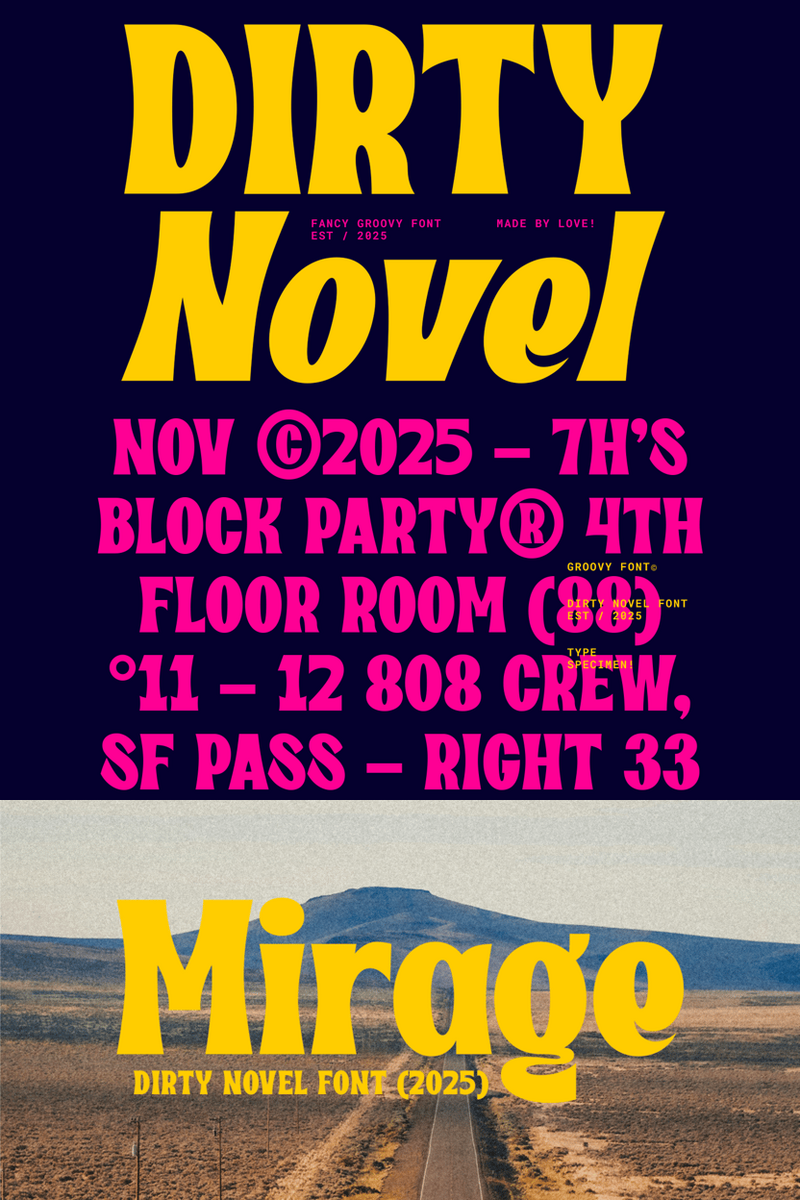
Cultivating Creativity: How Dirty Novel Font's Organic, Hand-Drawn Spirit Brings Playful Authenticity to Educational Platforms, Crafting Memorable Logos for Outdoor Learning Apps and Vibrant Branding for Experiential Workshops
Tired of learning looking... a little too clean? A little too stiff? Let's face it, sometimes education needs to get its hands wonderfully, delightfully dirty! Enter Dirty Novel, the font that's shaking up educational design with a whimsical, organic, and utterly captivating personality.
Imagine the authentic scrawl of a passionate teacher, the spontaneous sketch in a well-loved notebook, or the gentle rustle of leaves as a new concept takes root. That's the heart of Dirty Novel. It’s not just a typeface; it’s a living, breathing character, each curve and stroke brimming with a natural, hand-crafted charm that instantly sparks curiosity and connection. It embodies that perfectly imperfect spirit, like an adventurous spirit ready to explore new ideas.
Picture this: You’re crafting an incredible online course about sustainable living or an interactive app for young naturalists. You’ve got groundbreaking content, stunning visuals, but your chosen font feels... sterile. It’s professional, yes, but it lacks the earthy, vibrant energy your topic demands. Your learners scroll, but their eyes glaze over; the words don't feel green, don't feel alive. Now, swap it out for Dirty Novel. Suddenly, your module titles aren't just text; they’re an invitation. Your key takeaways aren't just bullet points; they're discoveries waiting to happen. The content breathes, it feels authentic, almost like it was personally scribbled by an expert sharing their passion directly with you. The "dirty" in its name isn't about being messy, it’s about being raw, real, and refreshingly unfiltered – just like learning in its most natural state.
Dirty Novel isn't just pretty; it's a powerful tool designed to solve common design challenges on learning platforms, transforming passive content into active engagement.
- Boost Engagement & Retention: Its playful, approachable aesthetic breaks down barriers, making complex topics feel less daunting and more inviting. Learners are more likely to interact and remember content that feels genuinely engaging.
- Forge a Unique Brand Identity: In a sea of generic serifs and sans-serifs, Dirty Novel helps your platform stand out. It communicates innovation, authenticity, and a fresh approach to education, building a memorable brand that resonates emotionally.
- Enhance Emotional Connection: The organic lines evoke a sense of human touch, fostering a more personal and intimate learning experience. It feels less like institutional instruction and more like a friendly guide on an exciting journey.
- Versatile & Vibrant: From eye-catching headings that demand attention to supportive body text that maintains its charming legibility, Dirty Novel adapts beautifully, ensuring your message always pops with personality.
So, where does this spirited font shine brightest? Think: Dynamic E-learning Modules where chapter titles become adventures. Engaging Educational Apps that need character in their UI and dialogue. Vibrant Marketing Materials for workshops that promise hands-on discovery. Creative Branding for nature schools, children’s literacy programs, or sustainable learning initiatives. Even Interactive Quizzes and Infographics gain a spark of life, turning passive consumption into active exploration.
It's about making learning feel less like a chore and more like an exciting exploration. It’s about getting real, getting curious, and getting inspired.
Dirty Novel: Authentic Learning, Unfiltered.